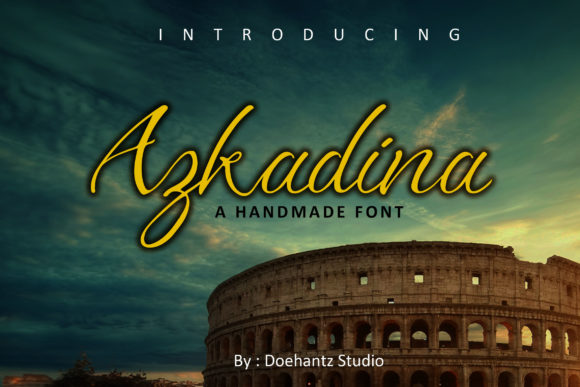
Journey into the world of Azkadina, a captivating script font that breathes life into your creative visions. Designed by the talented Doehantz Studio, Azkadina is not just a font; it's an experience that elevates your designs to new heights. With its graceful curves and organic lettering, Azkadina transforms ordinary words into works of art.
Dive into the depths of Azkadina's flowing characters and discover a font that's both elegant and edgy. Its unique style adds a touch of sophistication to any project, whether it's a wedding invitation, a branding campaign, or a social media post. Azkadina's versatility knows no bounds, making it the perfect choice for a wide range of design projects.
Unleash your creativity and let Azkadina take center stage. Its enchanting script adds a personal touch to logos, posters, flyers, and even handwritten notes. Watch as your designs come alive with Azkadina's expressive strokes and charming details.
With Azkadina, you'll never run out of inspiration. Its organic lettering evokes a sense of authenticity and warmth, capturing the essence of handmade calligraphy. Embrace the beauty of imperfection and let Azkadina's natural flow guide your designs towards greatness.
Welcome to the world of Azkadina, where elegance meets edge and creativity knows no limits. Experience the magic of this captivating script font and see your designs flourish like never before. Don't just download a font; embrace a journey of artistic expression with Azkadina.